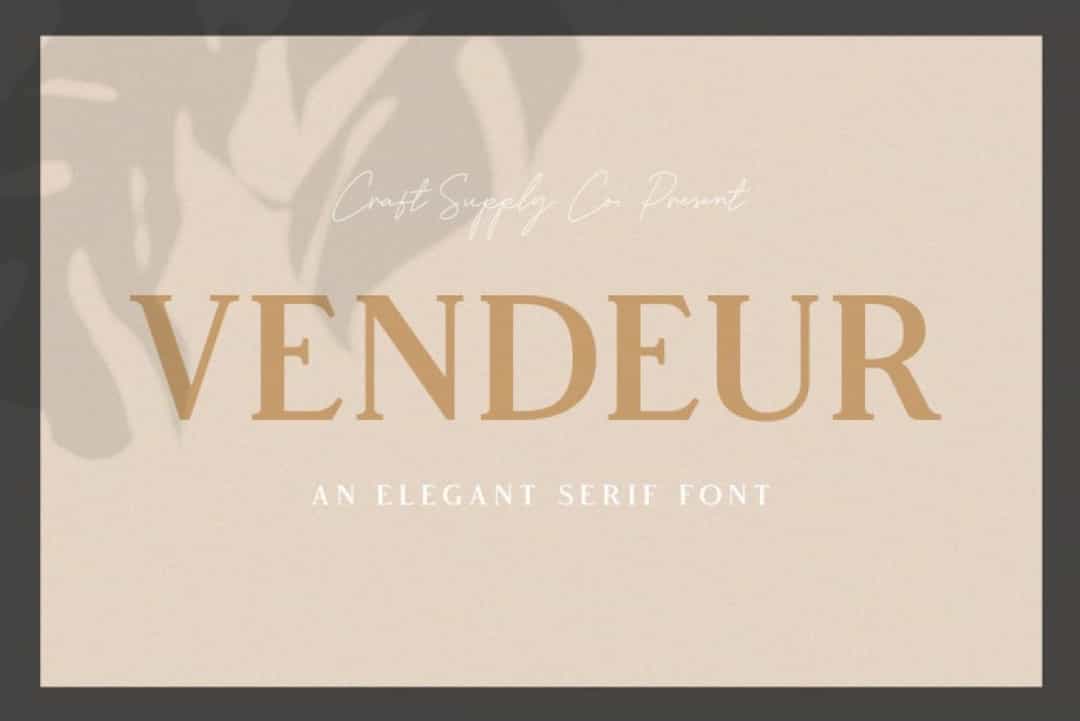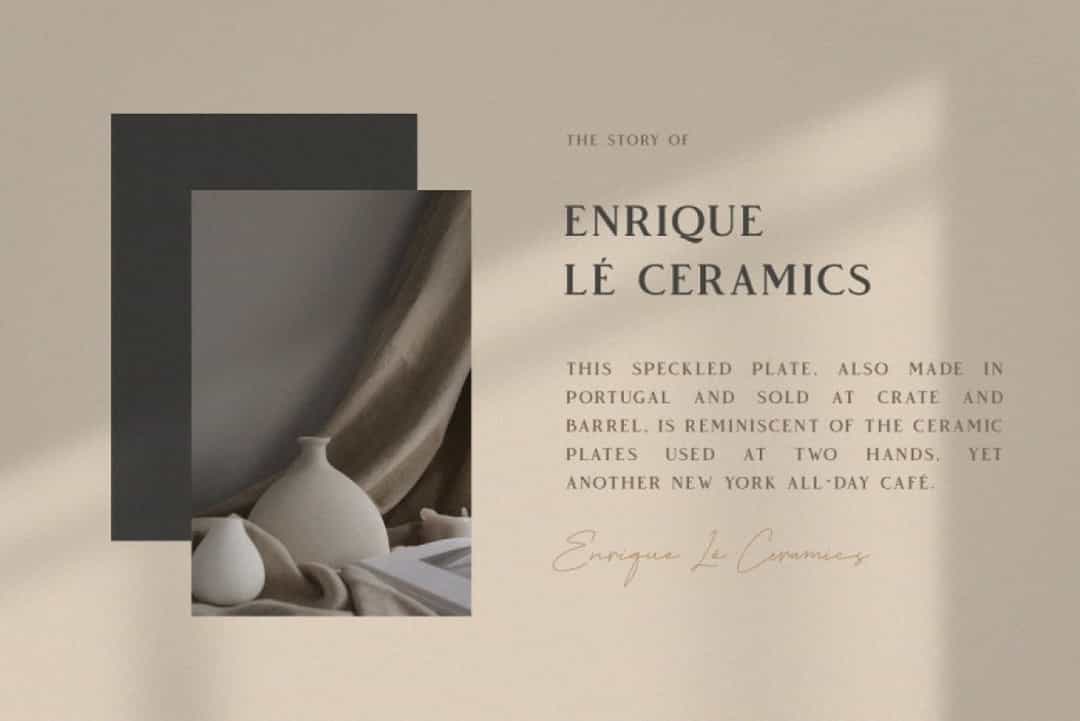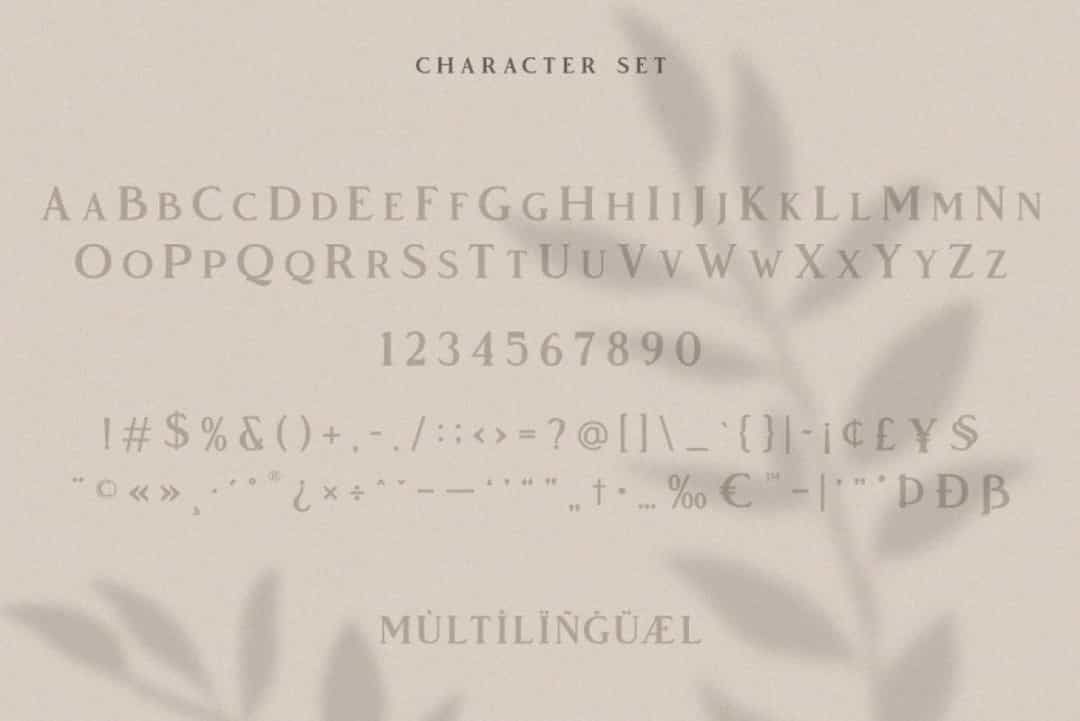
Vendeur is an elegant serif font family that exudes contemporary design aesthetic. Its distinguishing features are its lower contrast strokes, its somewhat rectangular designs of round characters, as well as its focus on business-like simplicity.